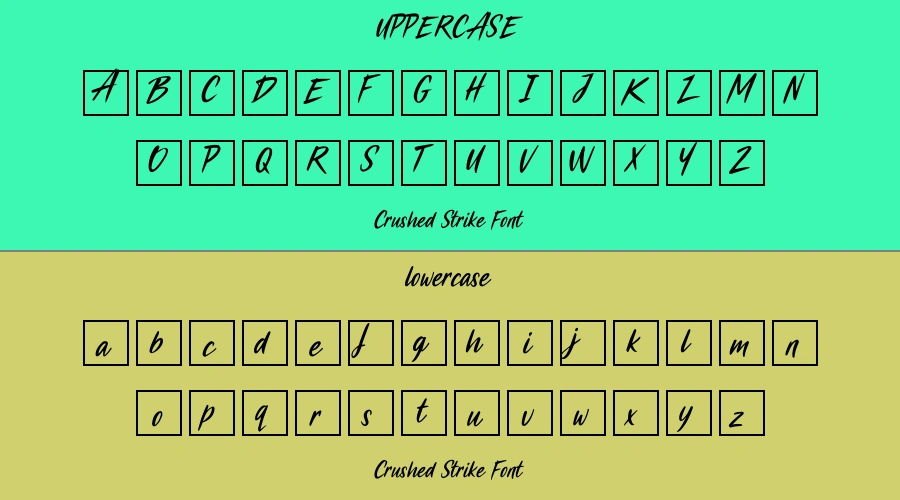
About Crushed Strike Font
Crushed Strike Font embodies typographic excellence through its masterful combination of calligraphic strokes and typographic texture. Created for environmental graphics, this typeface delivers exceptional impact and literary appropriateness across all applications. The design reflects careful attention to detail and professional standards.
Advanced capabilities include distinctive fluid motion and versatile case-sensitive forms, giving designers creative control. When used in heritage publications, Crushed Strike Font exhibits remarkable detail preservation. The harmonious balance between aperture size and cultural context sets this typeface apart.